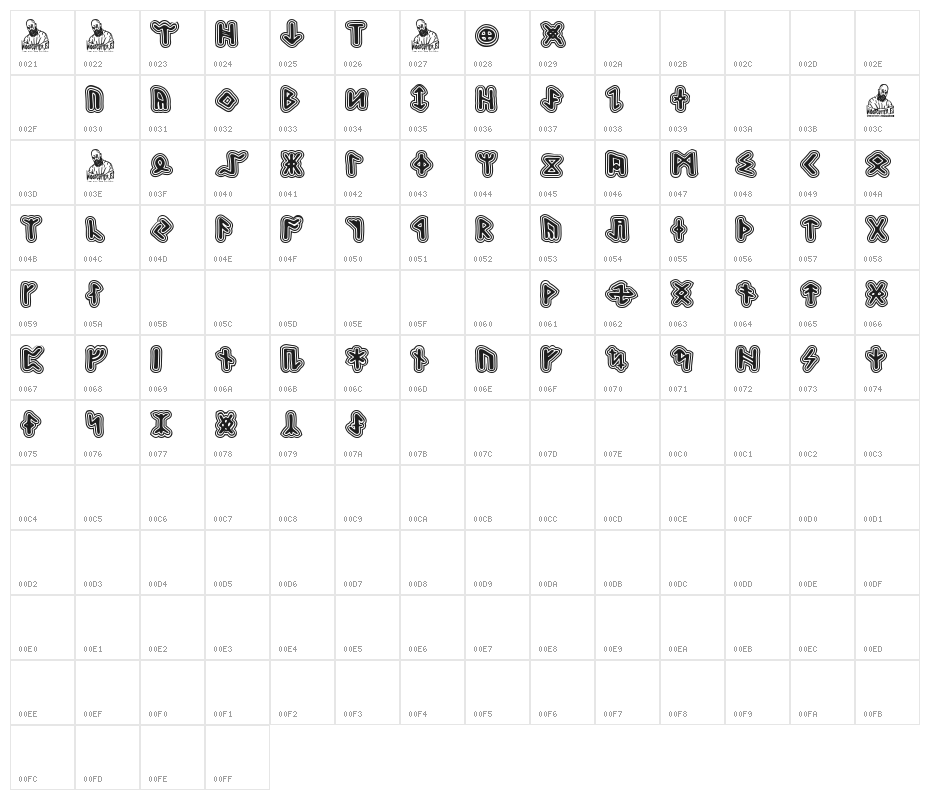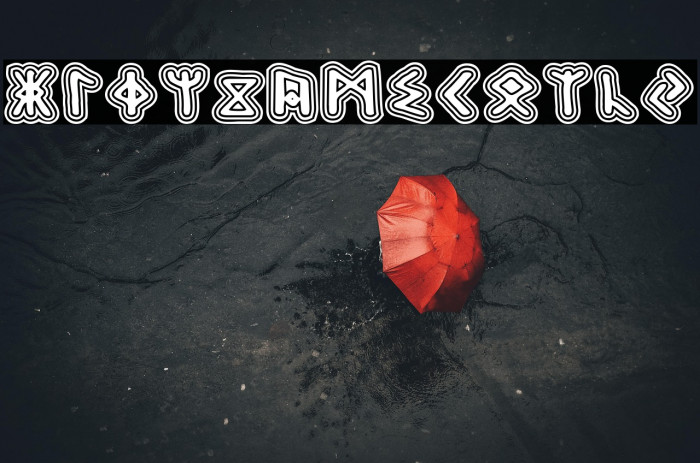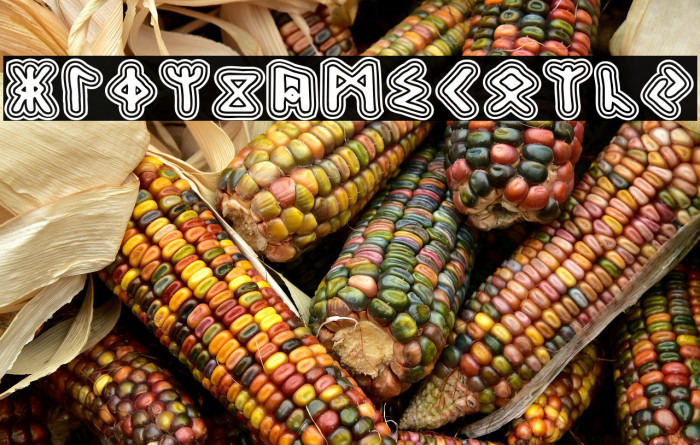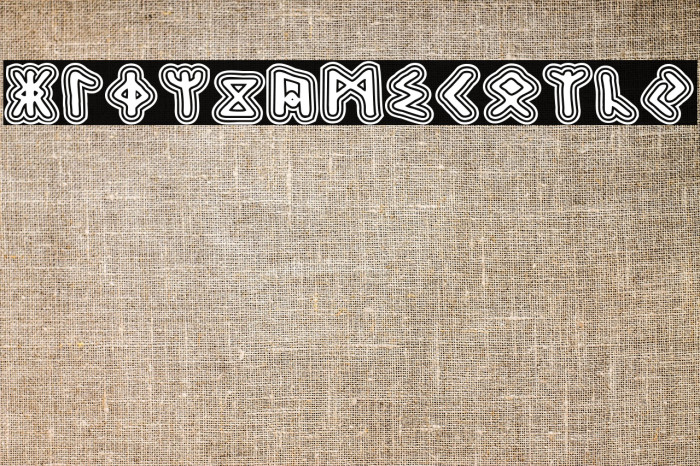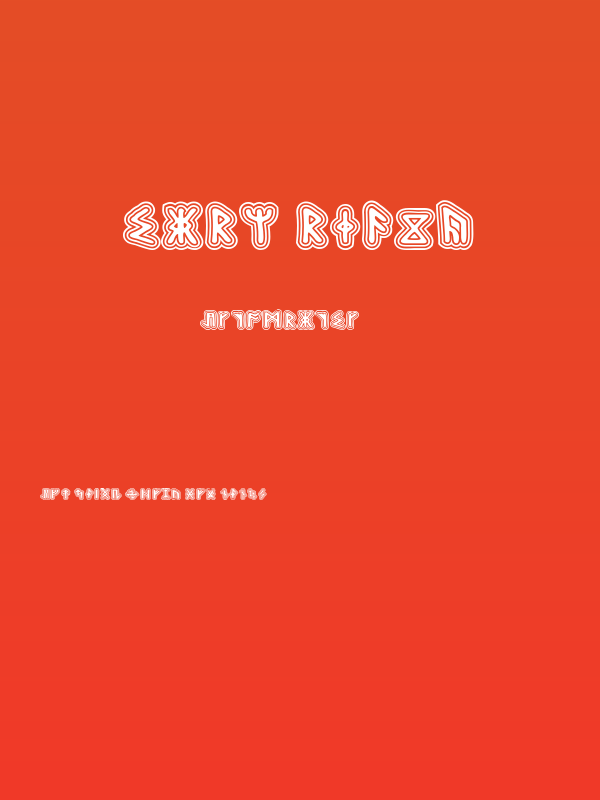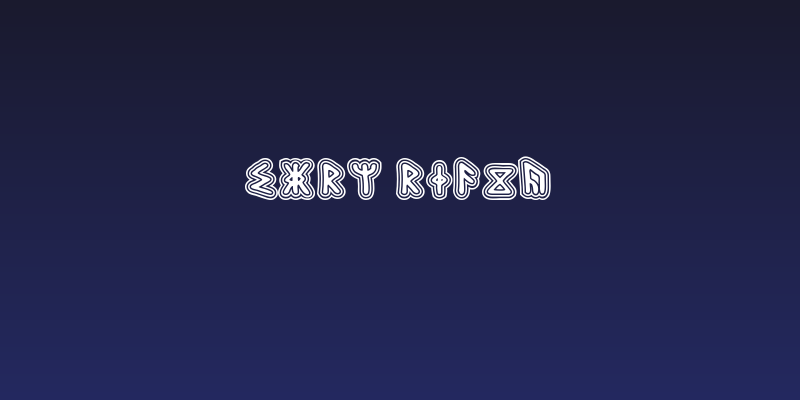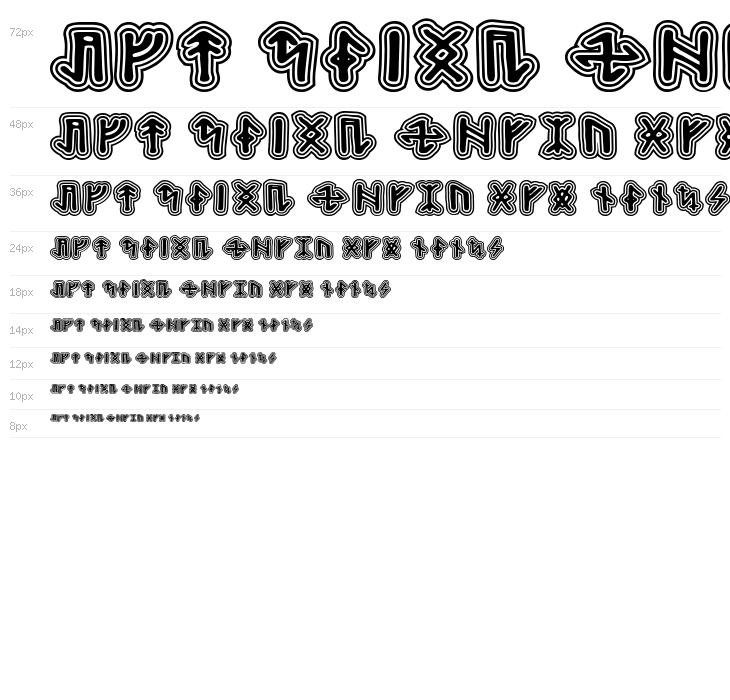
Hard Runes Font
Hard Runes Description
Bold, outlined display font inspired by runic and Norse motifs, featuring thick strokes, geometric shapes, and strong angular forms with double-line contours for a striking, decorative effect.
| Overall Style | Decorative, Runic, Fantasy |
| Use Case | Logos, Headlines, Posters, Themed Graphics |
| Proposed Projects | Fantasy game titles, heavy metal band logos, posters, themed event branding, book covers, and merchandise for Norse or Viking themes. |